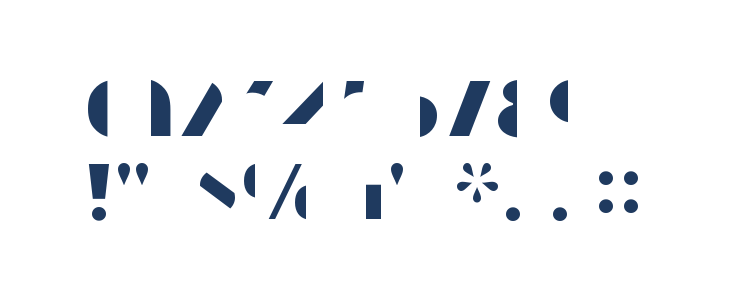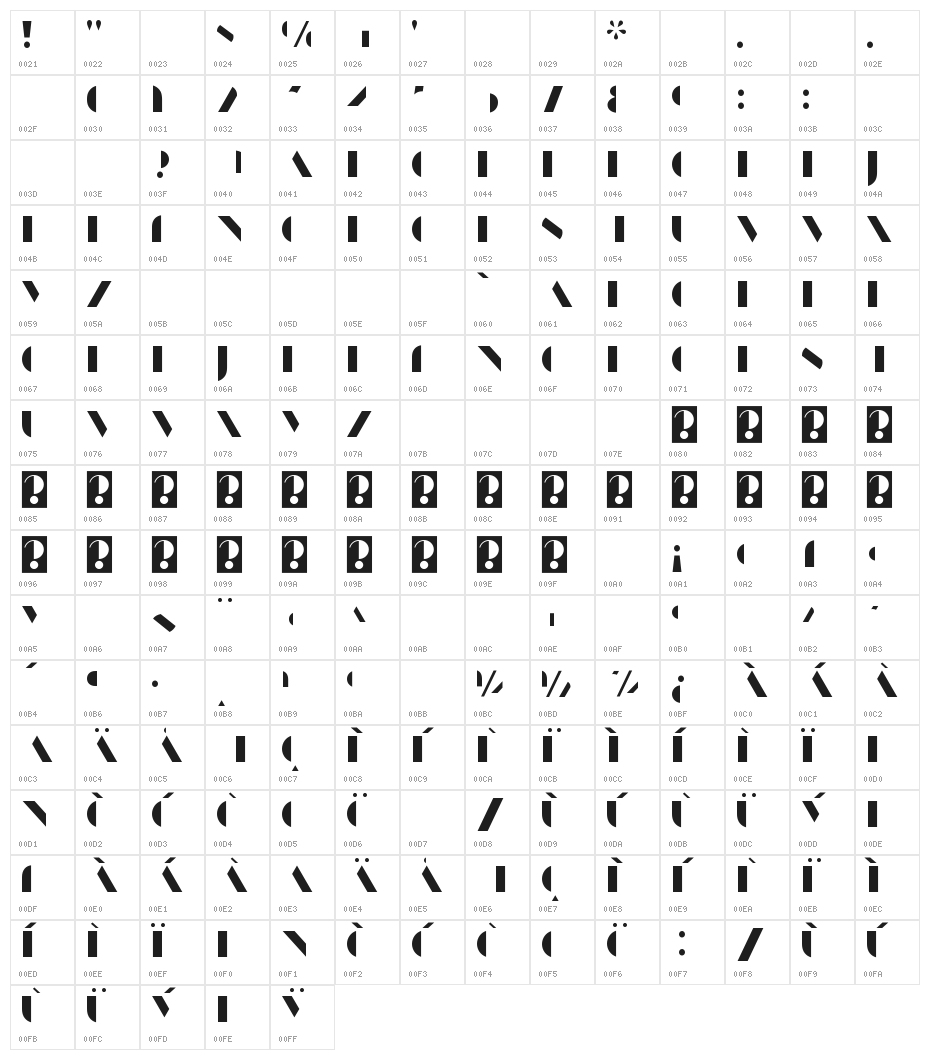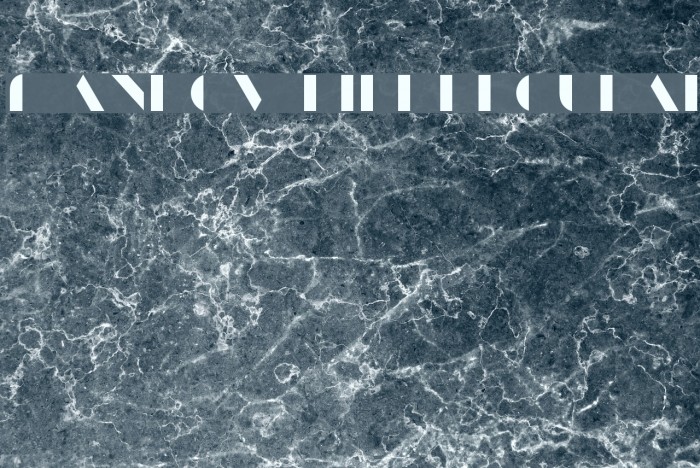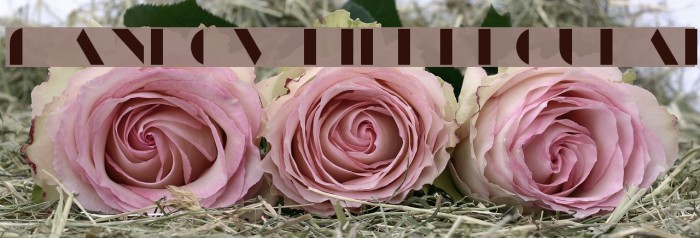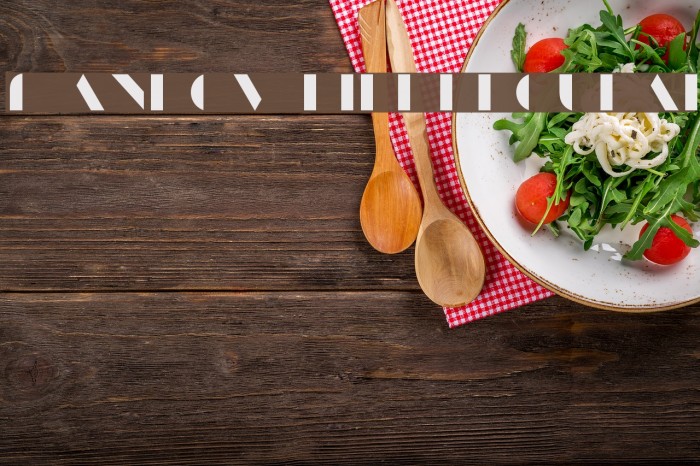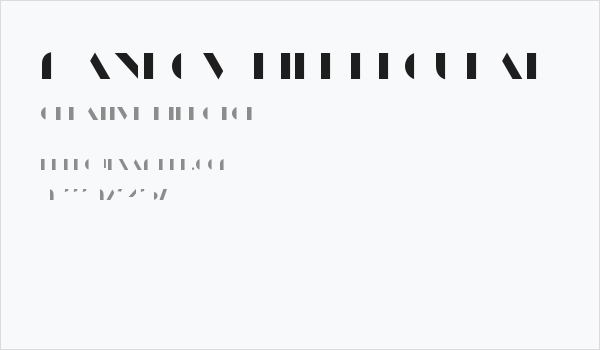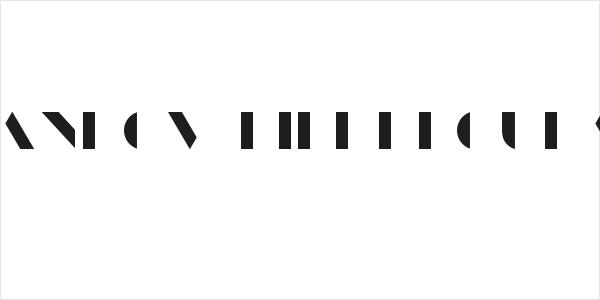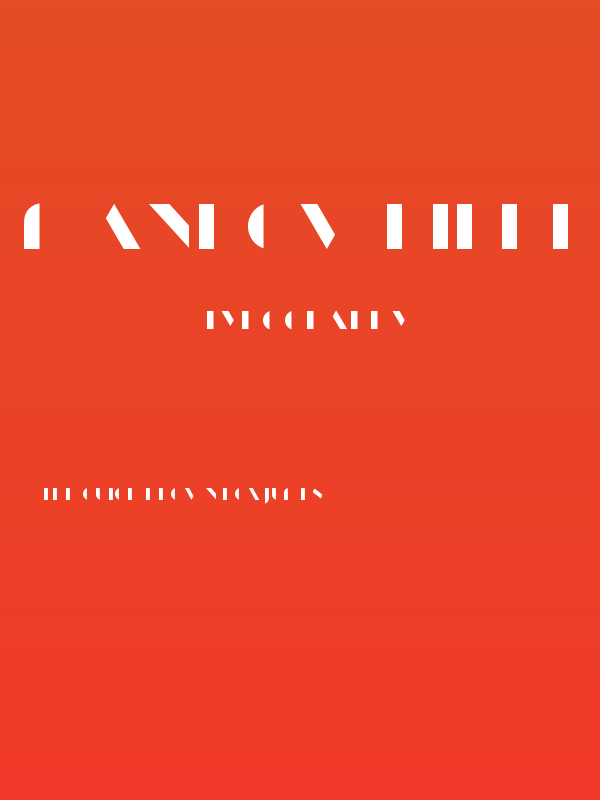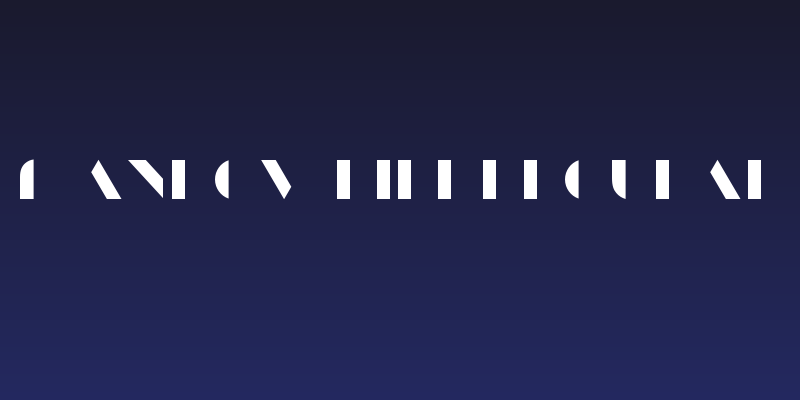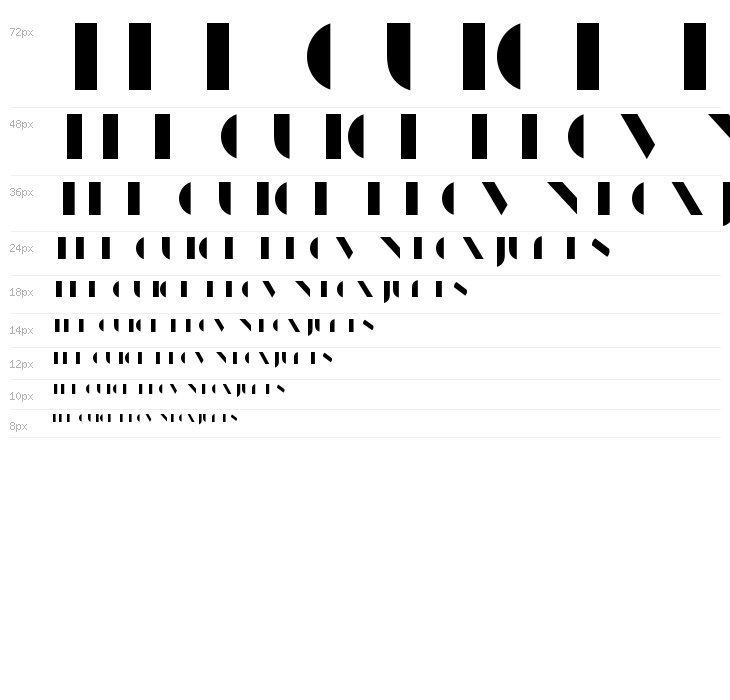
ManbowFill-Regular Font
ManbowFill-Regular Description
This font features a bold and geometric design, characterized by its use of solid shapes and sharp angles. The letters are constructed with a combination of straight lines and curves, creating a modern and abstract appearance. The uppercase and lowercase letters maintain a consistent style, with a focus on symmetry and balance. The numerals and special characters follow the same design principles, ensuring a cohesive look across all elements. This font's unique style makes it stand out, offering a striking visual impact.
| Proposed Projects | Ideal for modern branding, poster designs, and digital artwork where a bold statement is needed. |